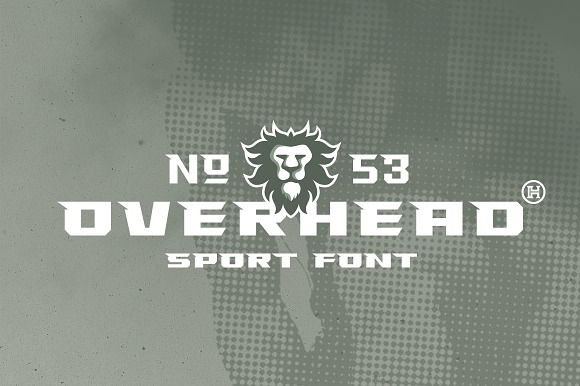
Overhead Typeface | Font
This elevated typeface is perfect for aviation brands, aerospace companies, airport signage, flight training schools, aviation magazines, pilot merchandise, aircraft manufacturers, sky-themed projects, and high-altitude design applications.
What makes this font exciting is its airborne authority combined with aviation precision, offering designers a soaring typeface that captures the majesty of flight while delivering aeronautical sophistication and sky-high professional excellence.
The Overhead font family includes light, regular, medium, bold, condensed, and aviation variations, providing complete aerospace design solutions for creating elevated visual identities.
Whether you're developing aviation industry brands or crafting flight-themed experiences, Overhead Typeface | Font Free Download brings exceptional aviation atmosphere and aeronautical authenticity to every application. This elevated typeface combines traditional aviation typography with contemporary aerospace design, creating letterforms that inspire flight and celebrate aviation excellence. The font's airborne construction and flight-ready details make it perfect for brands seeking immediate aviation recognition.
Overhead Typeface | Font features carefully engineered aviation styling with authentic aeronautical character that conveys genuine flight expertise. Each character has been designed with precise proportions and elevated elements that enhance the sophisticated aesthetic. The font's aviation qualities make it particularly effective for aerospace companies and flight applications.
Professional designers choose Overhead Typeface | Font for projects requiring authentic aviation credibility and aerospace atmosphere. Its flight heritage makes it exceptionally well-suited for airlines, pilot training centers, and aviation lifestyle brands. The font's versatile elevated variations allow designers to control the aviation intensity, from subtle flight elegance to full aerospace celebration.
The complete Overhead Typeface | Font package offers extensive aviation ornaments and aerospace decorative elements that enhance the elevated aesthetic. Advanced flight features allow designers to create complex aviation effects with multiple sky-inspired options. This comprehensive aerospace toolkit ensures designers have everything needed to create authentic aviation communications that celebrate the boundless freedom of flight and aeronautical engineering excellence.